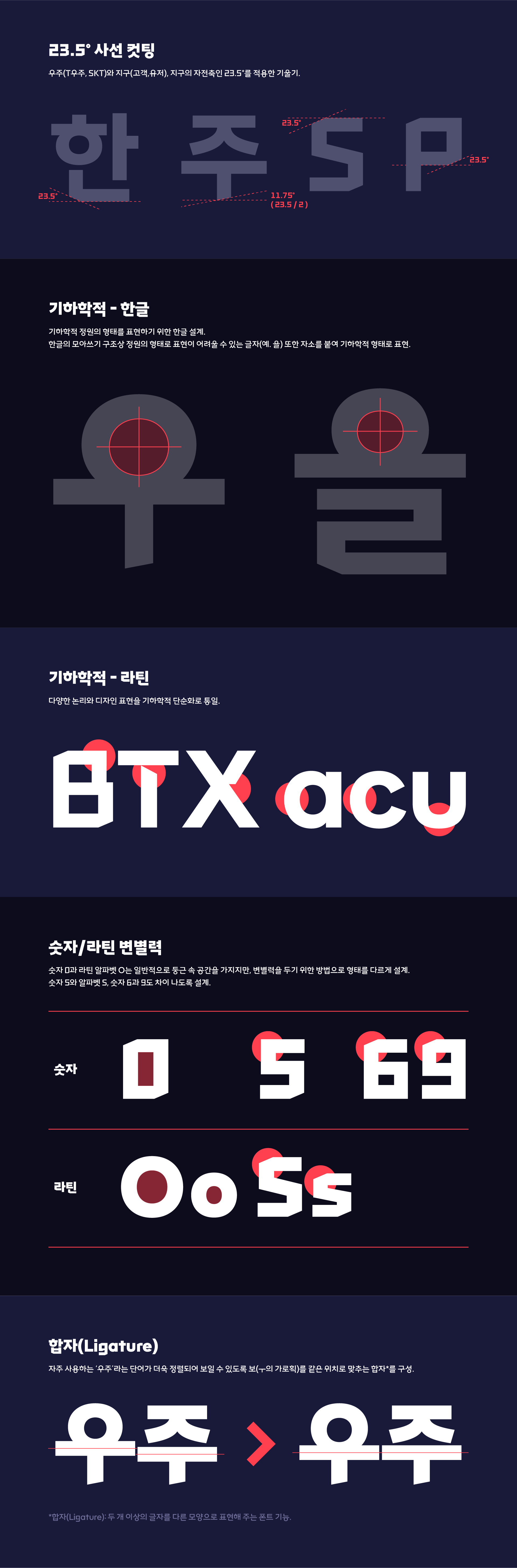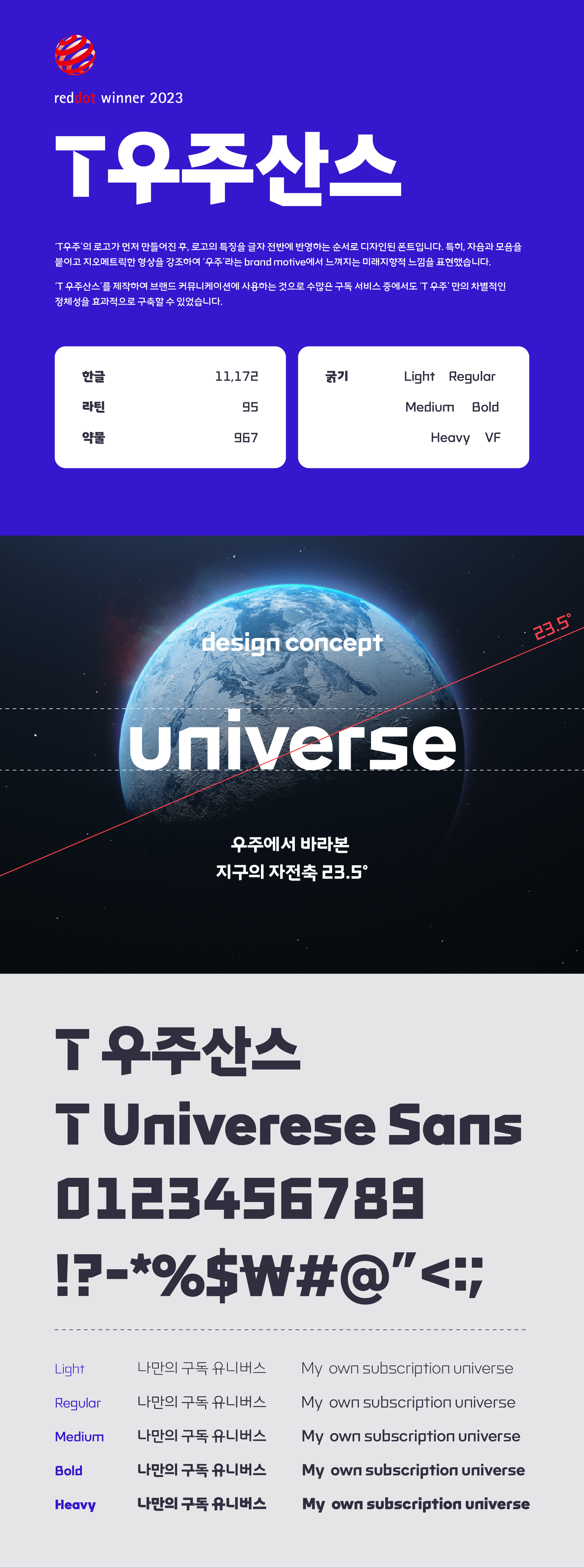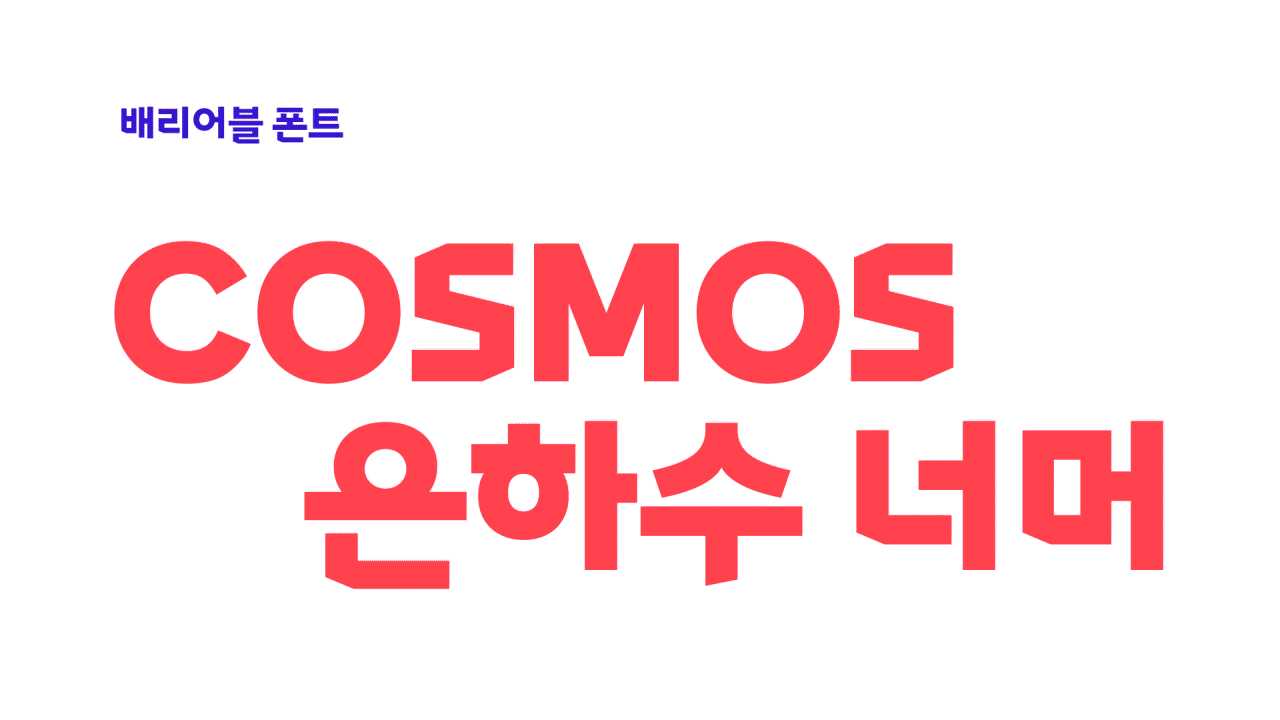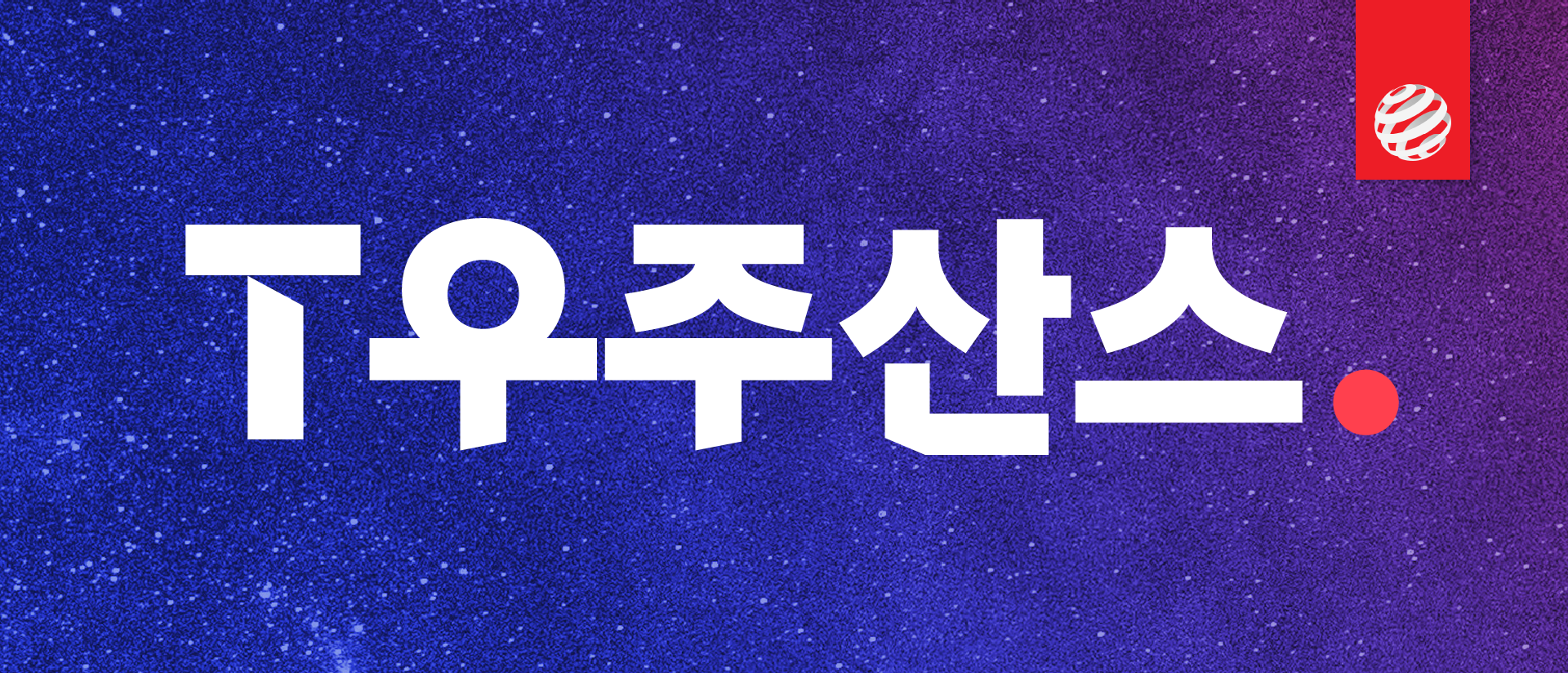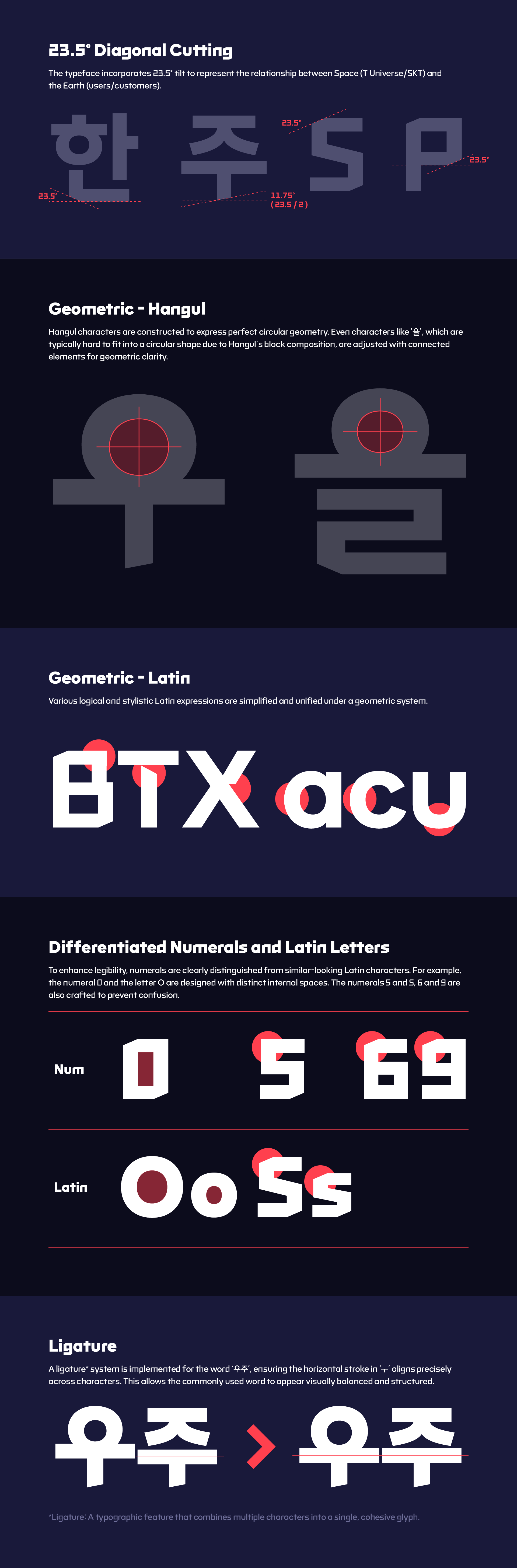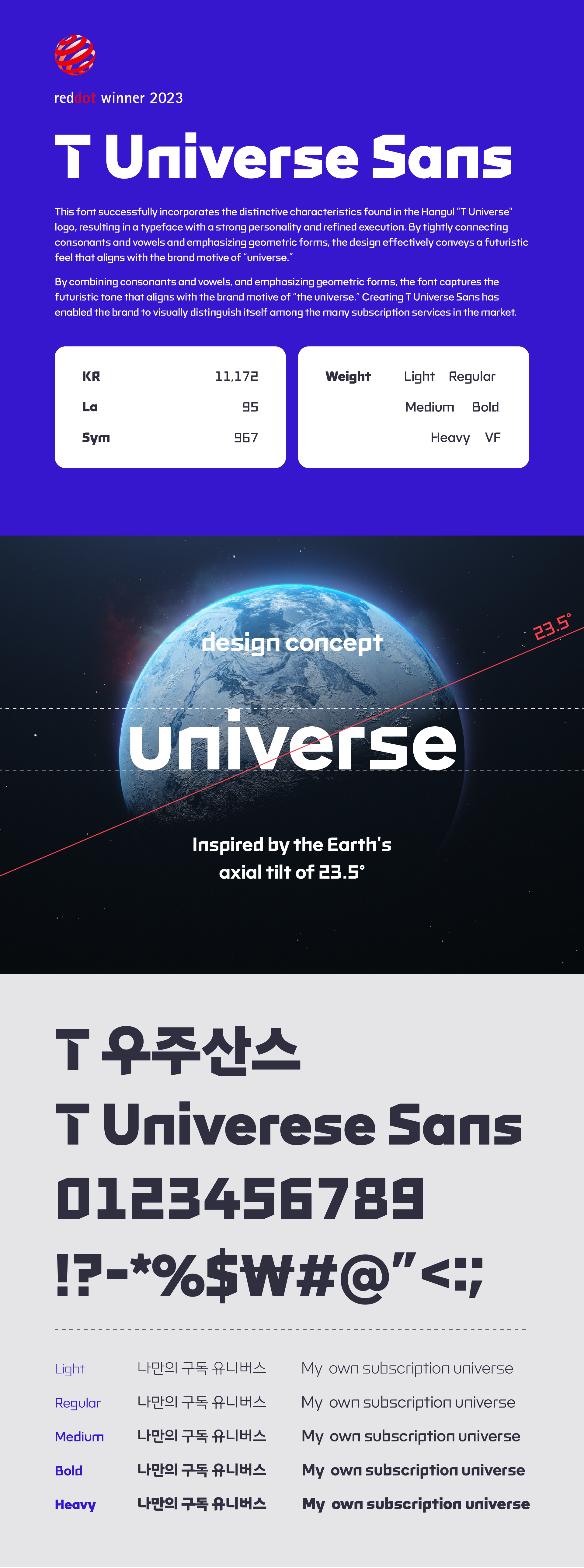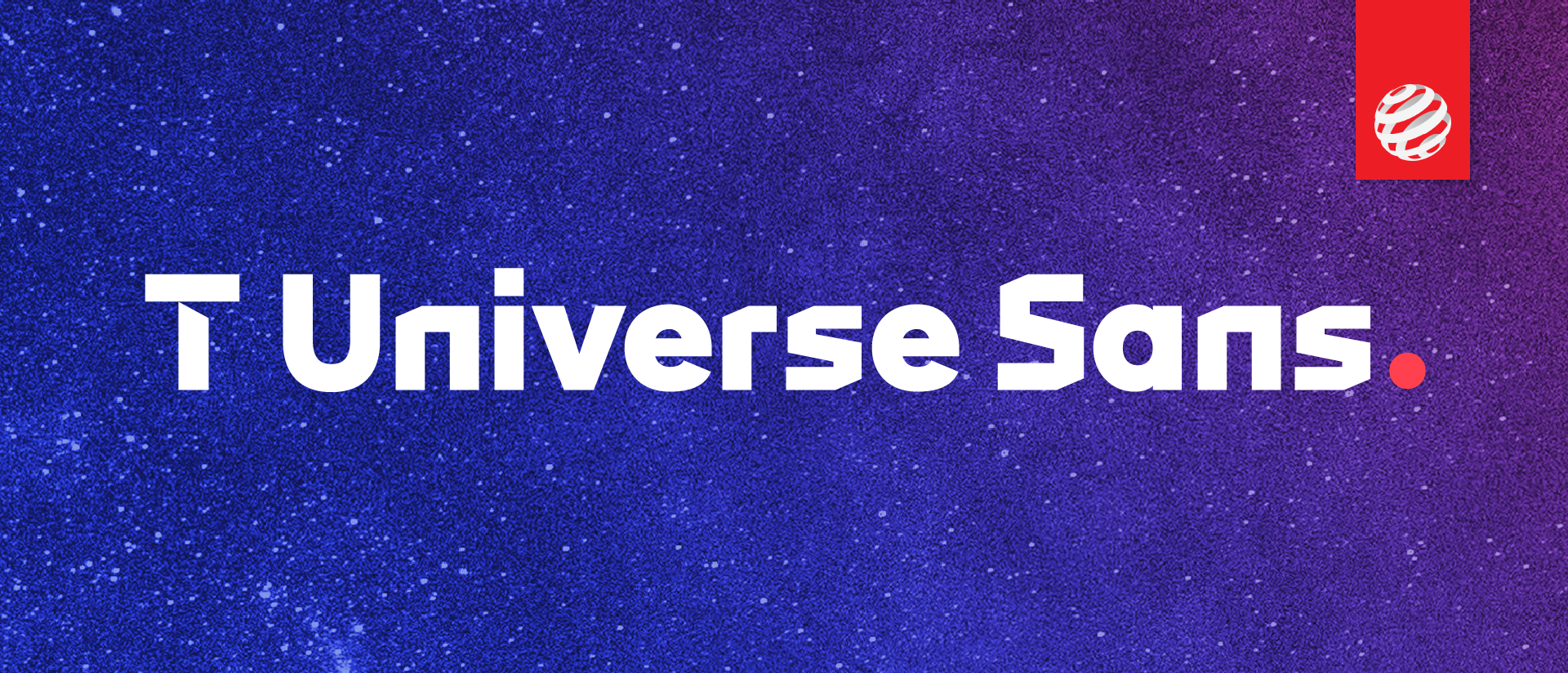
T Universe Sans
The typeface successfully reflects the unique characteristics found in the Hangul-based T Universe logo, translating them into a full character set with strong individuality and high design quality.
By combining consonants and vowels, and emphasizing geometric forms, the font captures the futuristic tone that aligns with the brand motive of “the universe.” Creating T Universe Sans has enabled the brand to visually distinguish itself among the many subscription services in the market.